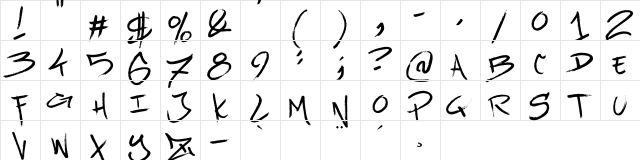
Urban Brush Zone Regular
| Designer | IMAGEX |
Design Context for Urban Brush Zone Typeface
Urban Brush Zone brings a calligraphic fluidity to the page — its connecting strokes and expressive curves give it an unmistakably human quality.
Font Pairing: Combine Urban Brush Zone with a simple geometric sans for maximum contrast — the tension between flowing curves and clean structure is a classic typographic pairing.
Pro Tip: Use Urban Brush Zone for short runs of text — names, titles, or taglines. Extended body copy in script faces tires the eye quickly.